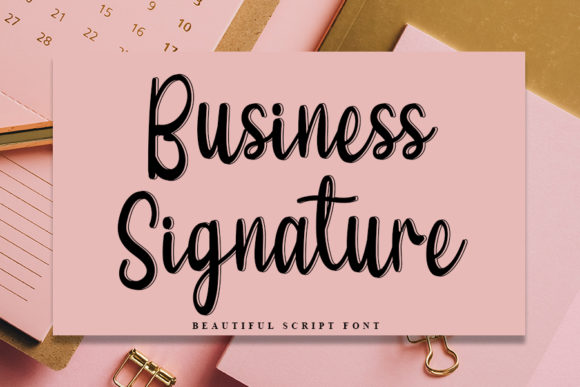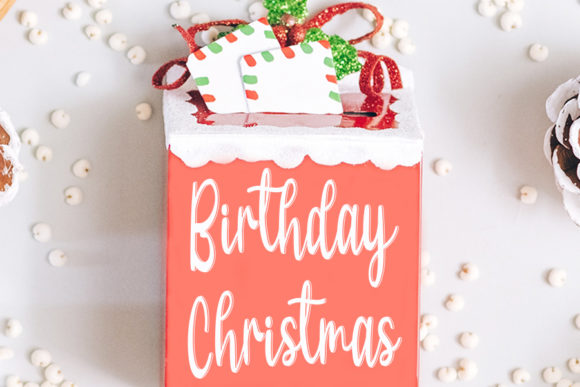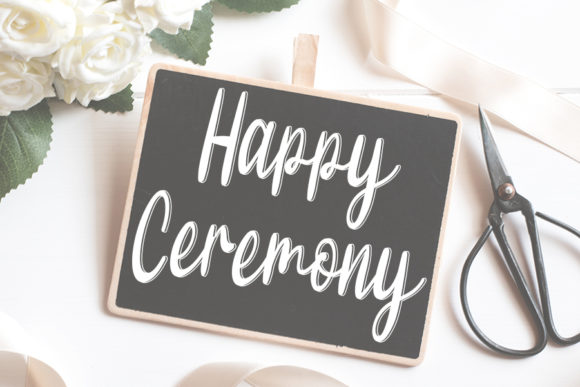
About Business Signature Font
Business Signature is a delicate and elegant script font. Its distinct and well rounded letters make this font a masterpiece. Fall in love with its incredibly versatile style and use it to create spectacular designs!